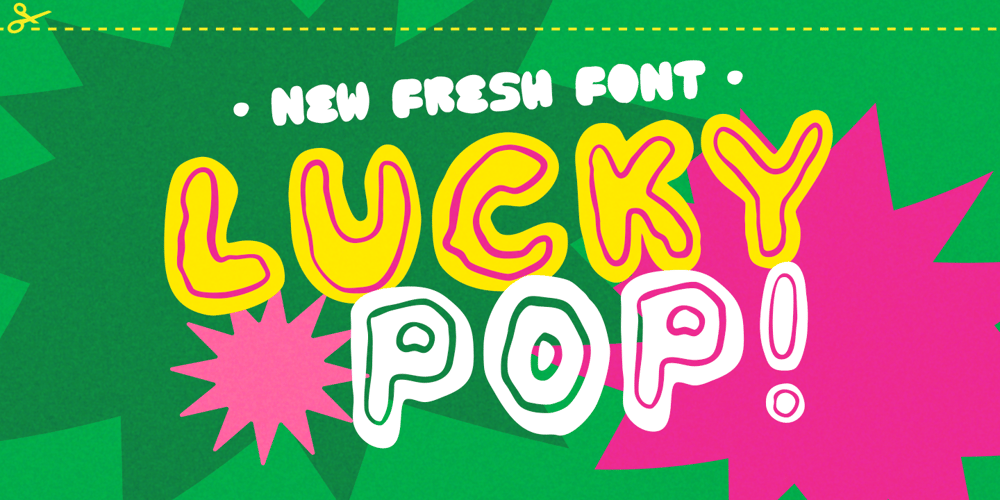
SL Lucky Pop Font Family was designed by Amelia Dian Isnaini and published by Sloulyfe Studio. SL Lucky Pop contains 3 styles and family package options. Get Lucky with Lucky Pop!With its fun and quirky design, this font adds a splash of spirit and cheerfulness to your projects. It features separate versions, allowing you to get creative with colors on the inline style. Exciting, right?What’s Inside? Regular, inline, and basic versions Uppercase and lowercase letters Numbers and punctuation Multilingual support PUA encoding